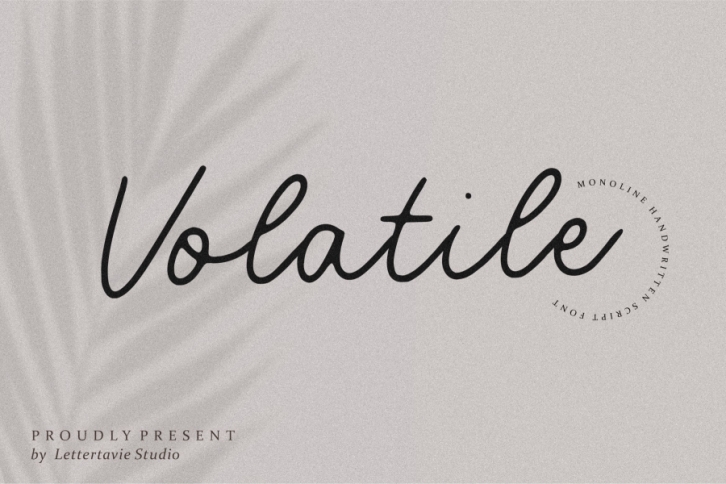
Introducing by Letterative Studio : Volatile Font
Volatile is Monoline Handwritten Script Font
Volatile is perfect for product packaging, branding project, megazine, social media, wedding, or just used to express words above the background.
Volatile also multilingual support